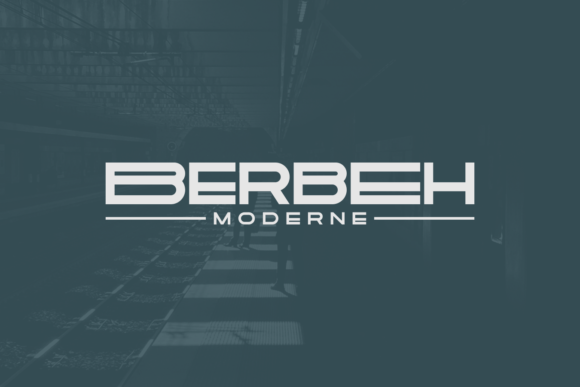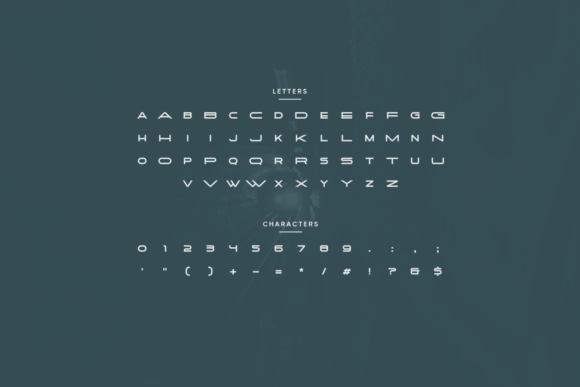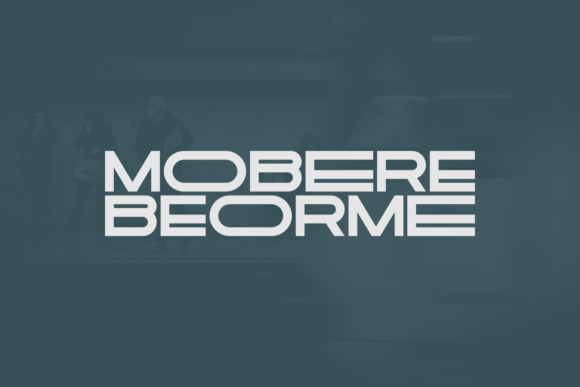
Introduction to Behmer Font
Behmer is a display font with a unique style with a little improvisation in the uppercase mode, although this font is all-caps but has a unique size for the lowercase letters.
This font is perfect for anything related to the future, illustration, poster, title, logo, magazine, or various other design, you will get a different experience and stand out in your designs .